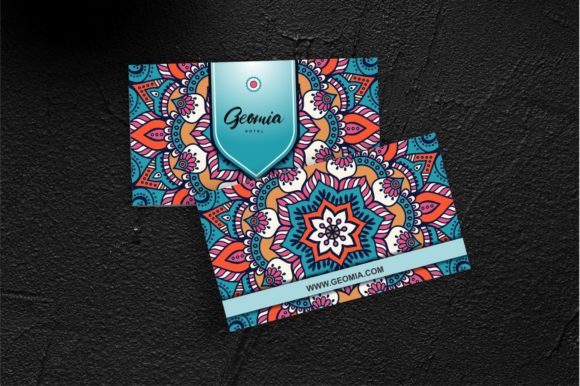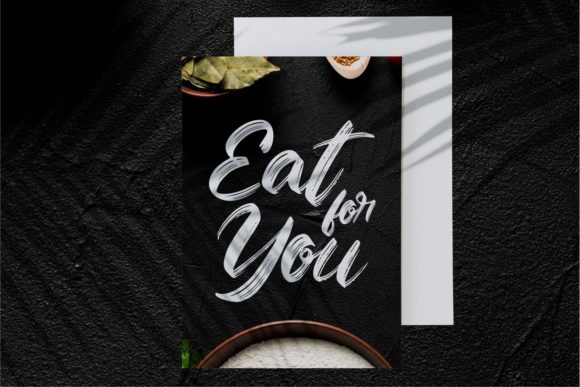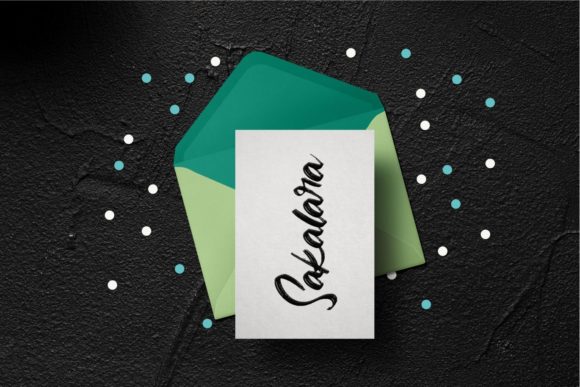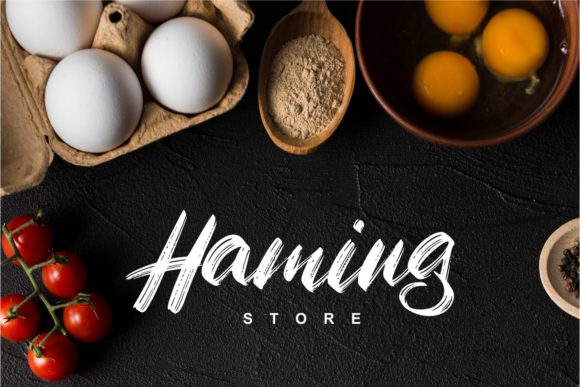
HomeScript FontsZigas Font Script Fonts Zigas Font FacebookXPinterestWhatsApp Zigas Font Poster 2 Zigas Font Poster 3 Zigas Font Poster 4 Zigas Font Poster 5 About Zigas Font Zigas is brush-style handwritten font with interesting character. Get inspired by its contemporary style! DOWNLOAD ON CREATIVE FABRICAThis font is sold and delivered by Creative Fabrica. Font Canyon may earn a commission if you buy through this link. People also explored Salty Doggie Street Cred Solifebo Font Neira Font Mermaid Whales Font Montage Font Snail Treasure Font Rosemary Script Font Celestique Font 336 0 TagsZigas Font Previous articleAzarita Duo FontNext articleJungle Font LEAVE A REPLY Cancel reply Comment: Please enter your comment! Name:* Please enter your name here Email:* You have entered an incorrect email address! Please enter your email address here Website: Save my name, email, and website in this browser for the next time I comment. Personal Use Free Awkward Personal Use Free Read more about this font Hubbies Personal Use Free Read more about this font BD Pipe Personal Use Free Read more about this font Critical Personal Use Free Read more about this font BLOG Elegant Wedding Invitation Fonts – Handwritten & Script Fonts Elegant Wedding Invitation Fonts Your wedding day is one of the most important moments of your life, and every detail matters—including your invitation design. Our... How to Install and Use Fonts on Windows, macOS, and Web Projects Free Fonts Risk: Why Free Fonts Can Be Dangerous for Designers Top 10 Handwritten Fonts That Elevate Your Designs